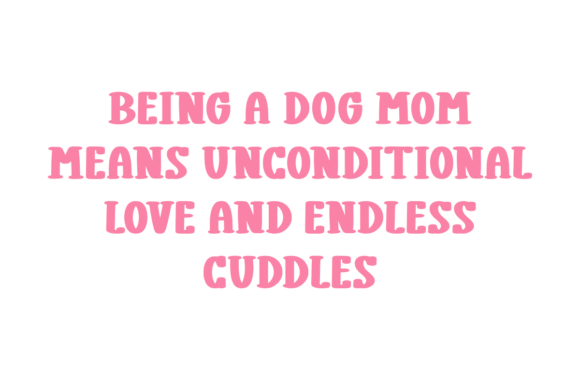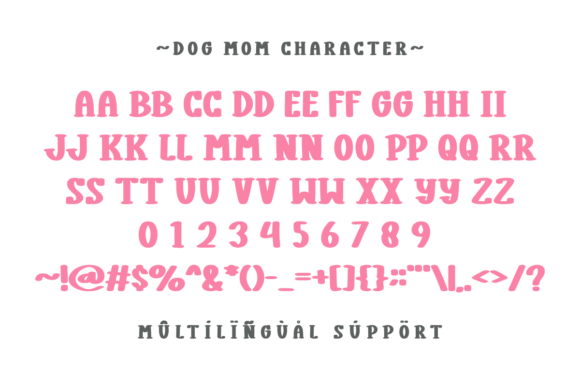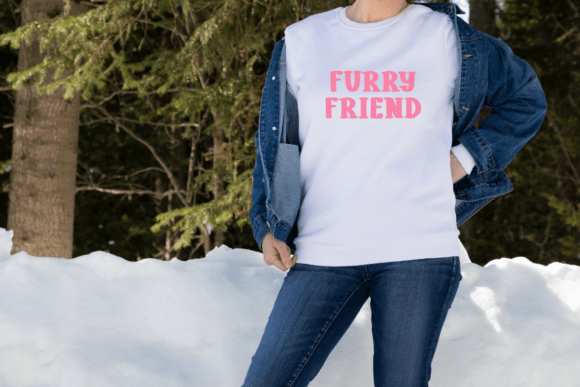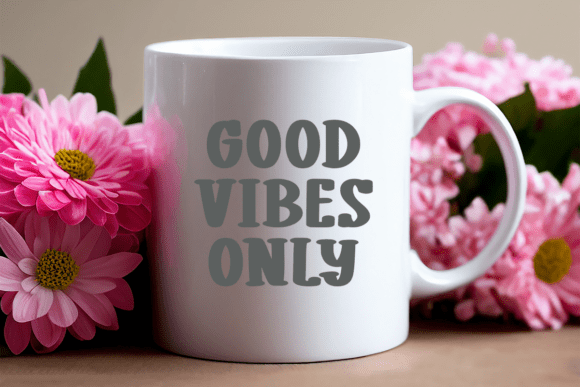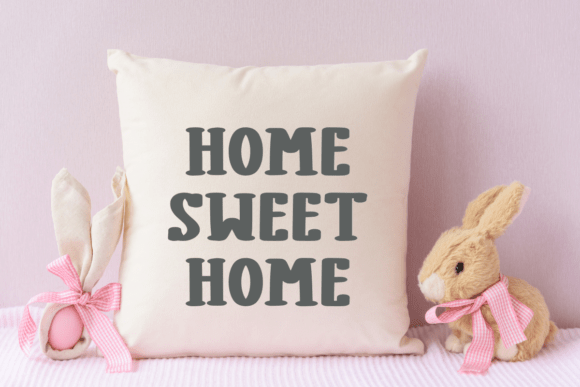
Introducing Dog Mom Font: The Perfect Addition to Your Design Arsenal
Are you a crafty pet mom or a designer looking for a font that exudes playfulness and boldness? Look no further than the Dog Mom Font! This delightful slab serif font is designed to bring a cheerful touch to any design project, making it an ideal choice for craft lovers, pet moms, and creatives alike.
What Makes Dog Mom Font So Special?
Dog Mom Font is a one-of-a-kind typeface that boasts a unique blend of playfulness and boldness. Its slab serif design gives it a sturdy and dependable feel, while its rounded edges and smooth curves add a touch of friendliness and approachability. This font is perfect for designs that require a bit of personality and whimsy, such as:
- Pet-related designs (pet stores, animal shelters, pet grooming services, etc.)
- Children’s books and educational materials
- Invitations and party decorations
Key Features of Dog Mom Font
Here are some of the key features that make Dog Mom Font a standout:
- Playful and bold personality: Dog Mom Font is designed to make a statement. Its bold and playful design ensures that your text will grab attention and leave a lasting impression.
- Slab serif design: The font’s slab serif design gives it a sturdy and dependable feel, making it perfect for designs that require a bit of substance.
- Cute and cheerful vibe: Dog Mom Font is designed to bring a smile to people’s faces. Its rounded edges and smooth curves give it a friendly and approachable feel.
- Easy to read: Despite its bold design, Dog Mom Font is surprisingly easy to read, making it perfect for body text and headings.
How to Use Dog Mom Font in Your Designs
Using Dog Mom Font in your designs is easy! Here are a few tips to get you started:
- Pair it with a simple font: Dog Mom Font is bold and playful, so it’s best paired with a simple font that won’t compete with it. Try pairing it with a clean sans-serif font like Arial or Helvetica.
- Use it for headings and titles: Dog Mom Font is perfect for headings and titles, where its bold design can really shine.
- Experiment with colors: Dog Mom Font looks great in a variety of colors, from bright and bold to pastel and soft. Experiment with different colors to find the perfect look for your design.
Why Designers and Crafters Love Dog Mom Font
Dog Mom Font has quickly become a favorite among designers and crafters, and for good reason. Here are a few reasons why:
- Unique and eye-catching: Dog Mom Font is a one-of-a-kind typeface that is sure to grab attention.
- Easy to use: Dog Mom Font is surprisingly easy to use, even for designers who are new to working with bold and playful fonts.
- Versatile: Dog Mom Font can be used in a wide range of design projects, from crafting and DIY projects to social media graphics and children’s books.
If you’re looking for a font that brings a cheerful touch to your designs, look no further than Dog Mom Font. This playful and bold slab serif font is perfect for craft lovers, pet moms, and creatives alike. With its unique blend of playfulness and boldness, Dog Mom Font is sure to become a favorite in your design arsenal.